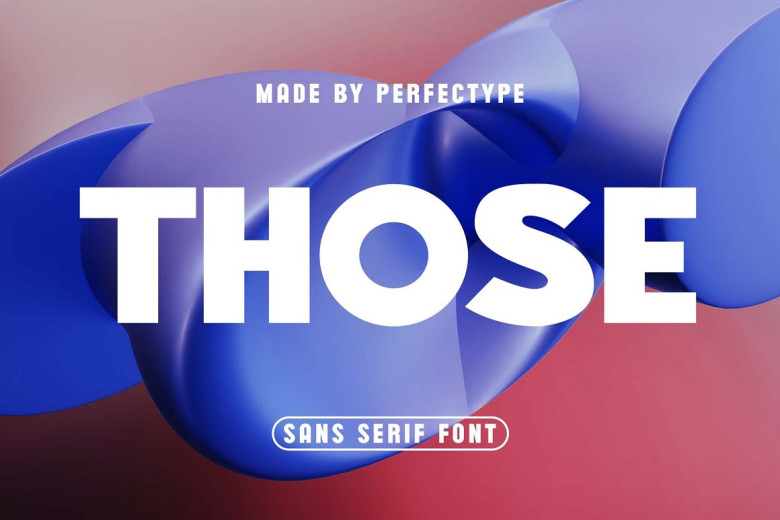
Those Font
Those Modern Sans Serif Font, inspired by the timeless minimalism of its namesake minimalist Logo, is ideal for designing templates, brochures and videos, advertising branding logos, invitations, layout design, elegant craft work, beauty design or any other purpose.
Those Modern Sans Serif Font